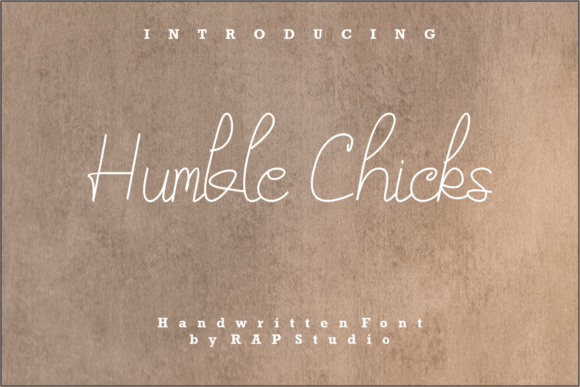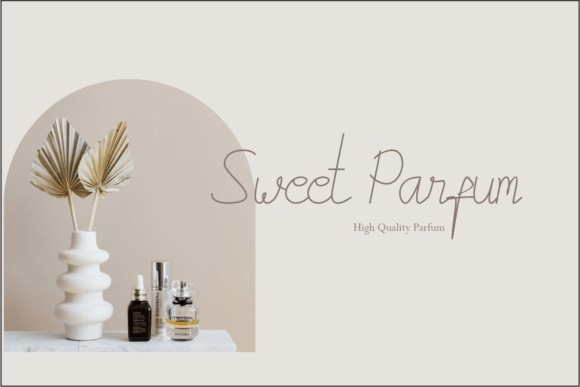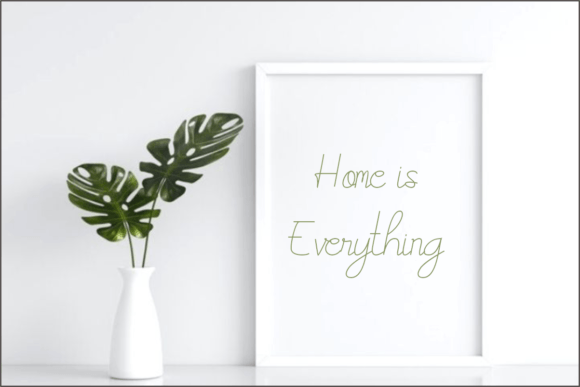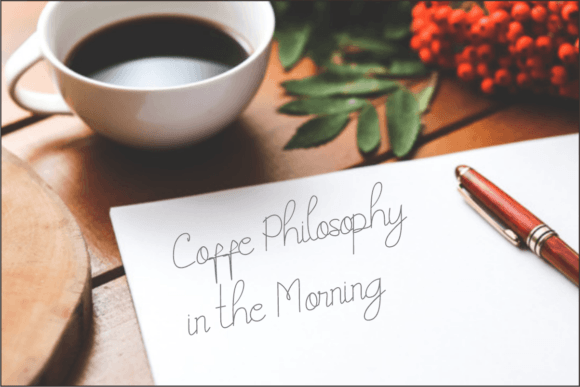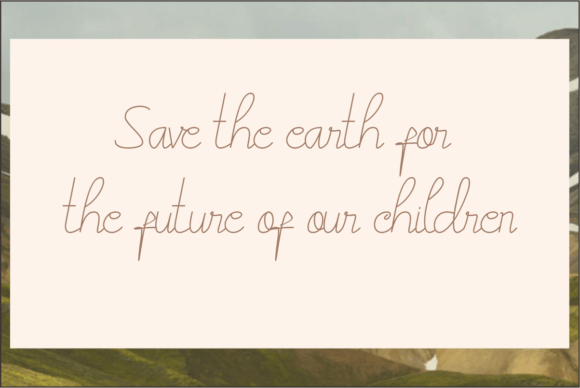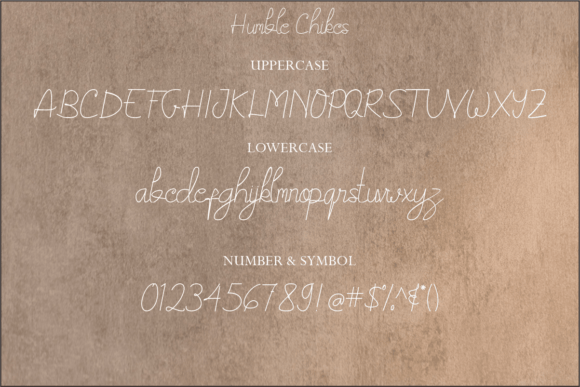
Humble Chicks Font
About Humble Chicks Font
**Humble Chicks: Where Elegance Meets Flow**
In the world of typography, where every font carries a unique personality, “Humble Chicks” emerges as a flowing handwritten font, graced with an elegant touch. This font is more than just an assortment of letters; it’s a canvas of artistic expression, designed to bring sophistication and grace to your favorite projects. With its distinct and timeless style, “Humble Chicks” captures the essence of elegance, making it the perfect choice for creating spectacular designs that stand the test of time.
**The Artistry of Flow:**
“Humble Chicks” is a masterpiece of fluidity, where each stroke seamlessly flows into the next, creating a captivating rhythm. Its flowing handwritten style evokes a sense of movement, making it ideal for projects that require a touch of grace and sophistication. The font’s letters dance gracefully, creating a harmonious balance between elegance and approachability. Its artistic flow ensures that your designs exude a sense of effortlessness and charm.
**An Elegant Touch:**
What sets “Humble Chicks” apart is its elegant touch, which adds a layer of refinement to your projects. Whether you’re designing wedding invitations, branding materials, or social media posts, this font elevates your creations with its sophisticated demeanor. The subtle curves and well-defined characters create an aura of understated elegance, making your designs visually striking and memorable.
**Timeless Appeal:**
“Humble Chicks” possesses a timeless quality that transcends trends and fads. Its classic style ensures that your designs maintain their appeal over the years, making them relevant and impactful. The font’s enduring charm allows you to create designs that resonate with various audiences, standing the test of time and leaving a lasting impression on viewers.
**Creating Spectacular Designs:**
With “Humble Chicks” as your creative tool, you have the power to craft spectacular designs that leave a mark. Its unique and elegant style becomes the cornerstone of your creative expression, allowing you to design projects that are not just visually pleasing but also emotionally resonant. The font becomes a storyteller, translating your ideas into captivating visuals that capture the essence of sophistication and beauty.
**Conclusion:**
“Humble Chicks” is more than just a font; it’s a design statement that embodies elegance and flow. Its flowing handwritten style and elegant touch transform your projects into timeless masterpieces, ensuring that your designs are both captivating and enduring. Let “Humble Chicks” be the muse for your creativity, and discover how its unique charm elevates your favorite projects to a level of sophistication that is truly spectacular.